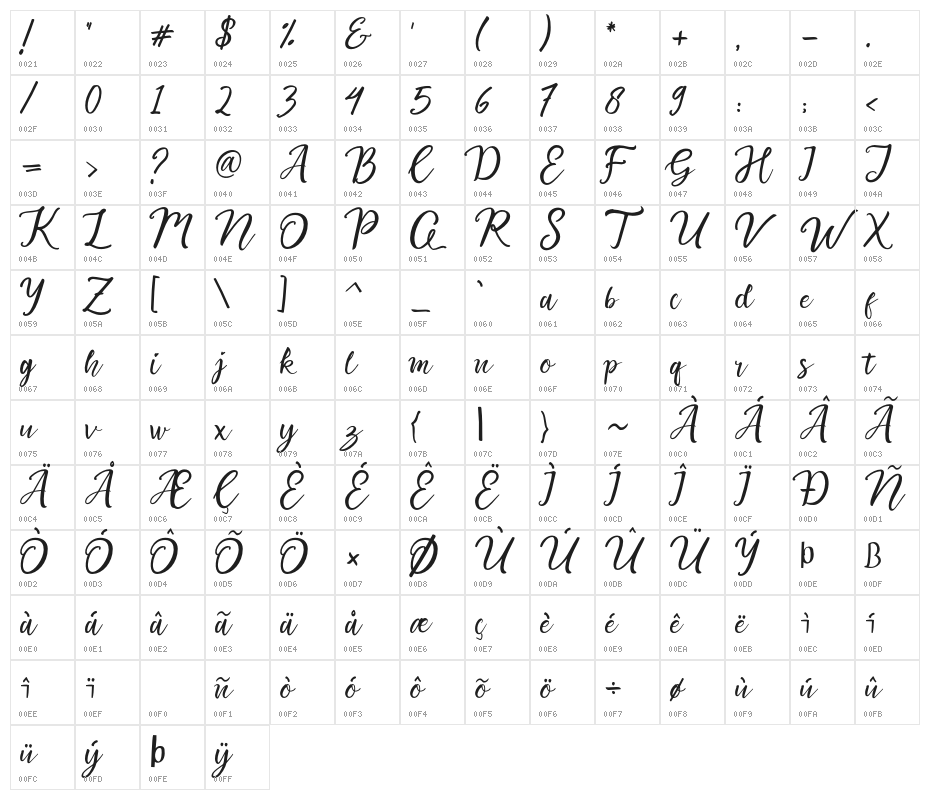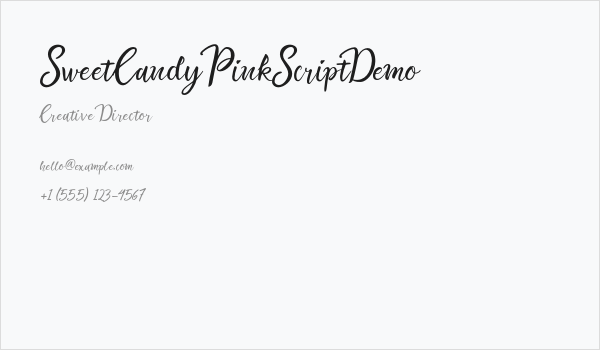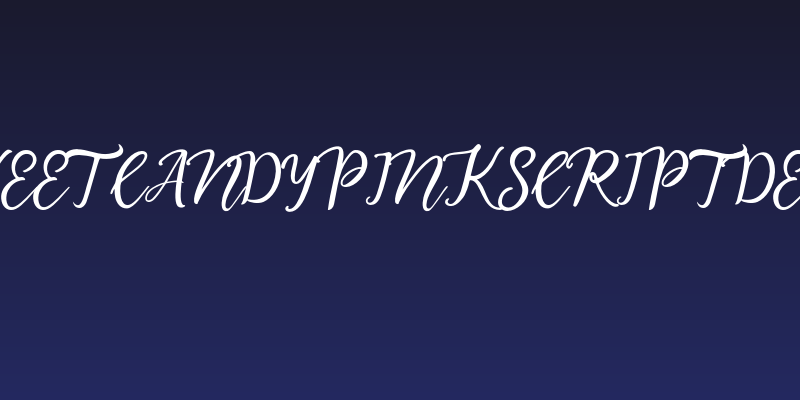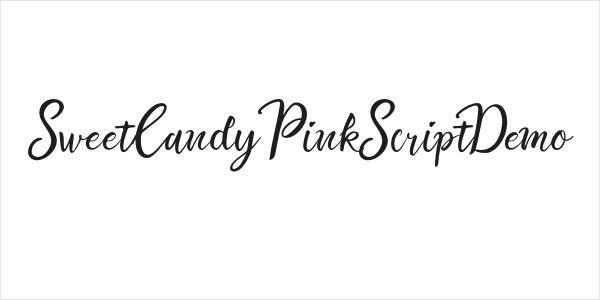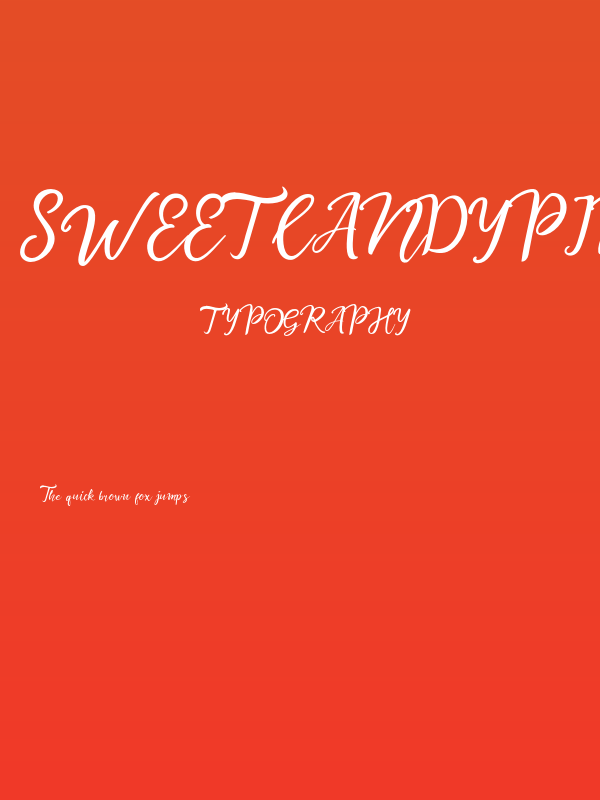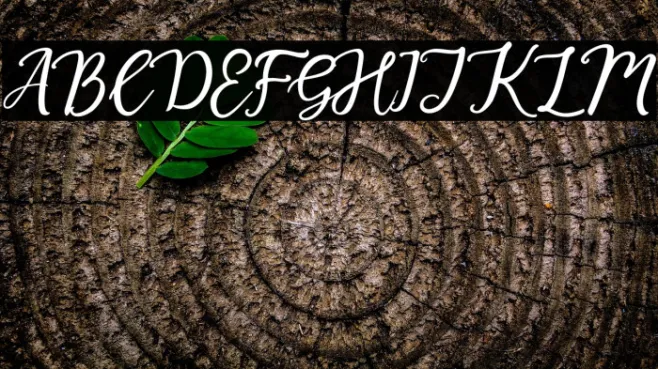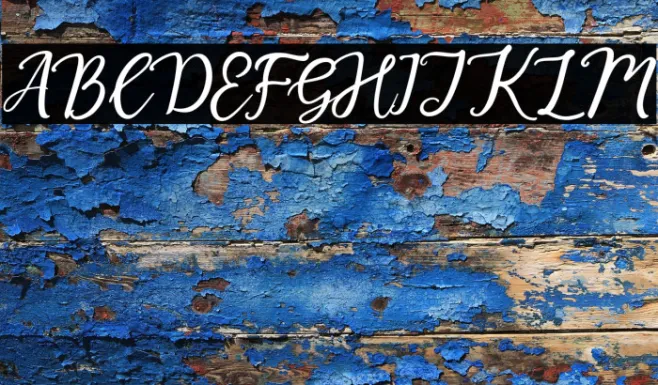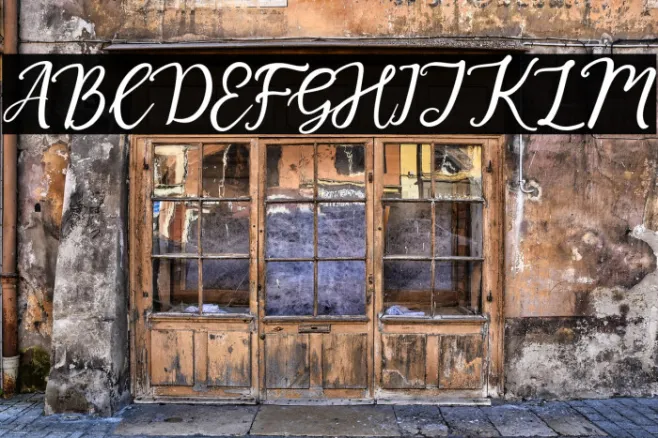
SweetCandyPinkScriptDemo Font
SweetCandyPinkScriptDemo Description
This font features a playful and elegant script style, characterized by its flowing, cursive letterforms. The uppercase letters are bold and slightly slanted, with a consistent stroke width that adds to its legibility. The lowercase letters maintain a similar style, with smooth curves and connections that create a cohesive look. Numbers and special characters are designed to match the overall aesthetic, ensuring uniformity across all text. The font's design is both modern and timeless, making it suitable for a variety of creative projects.